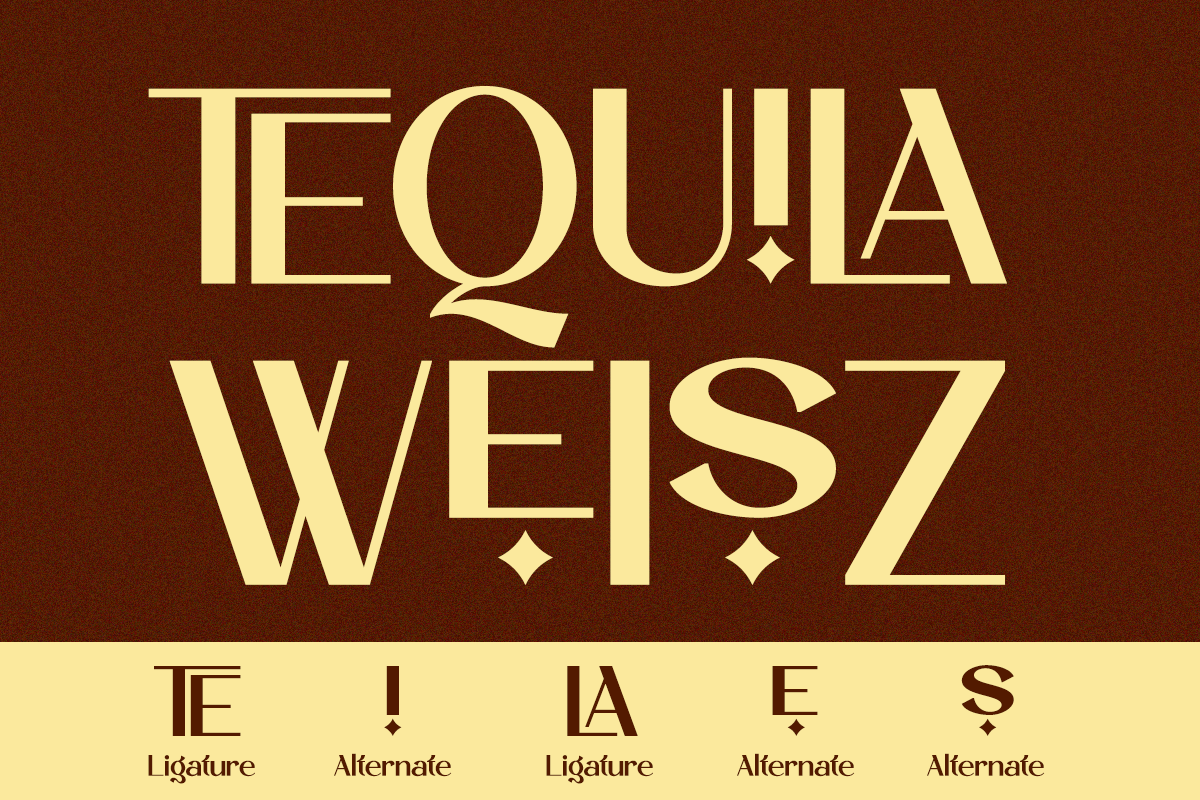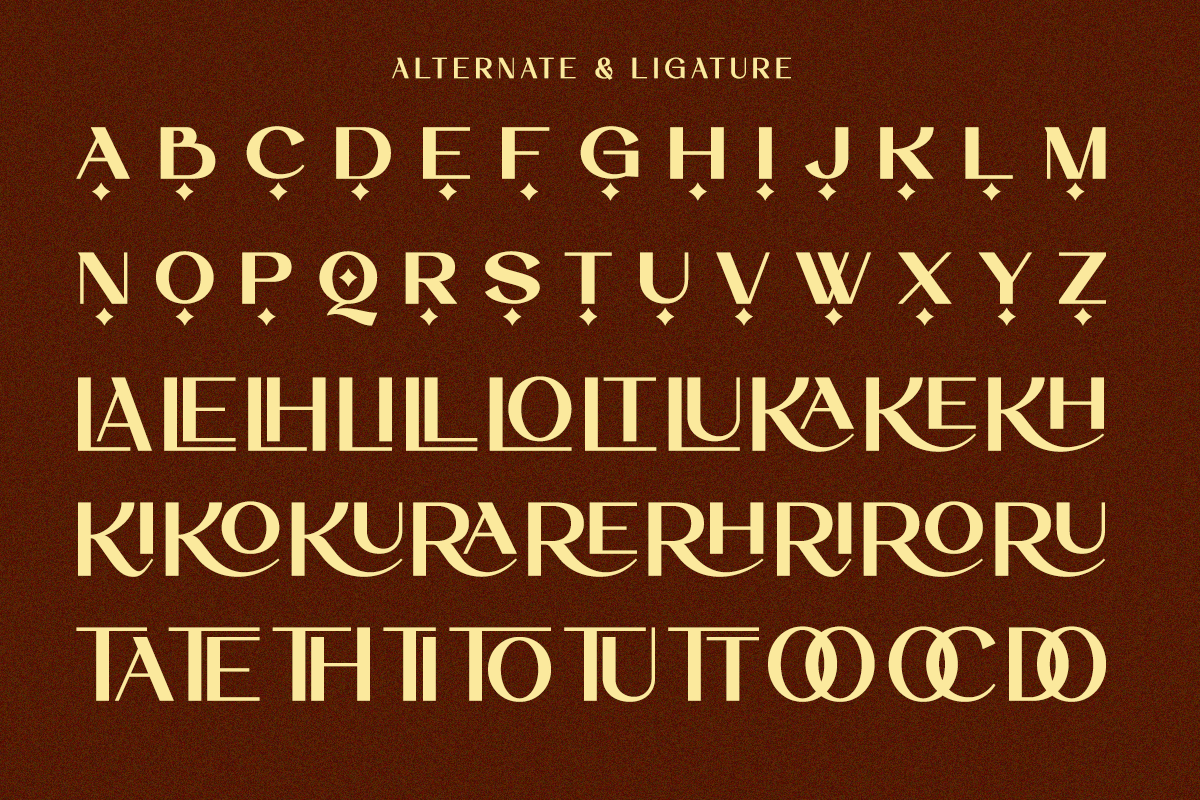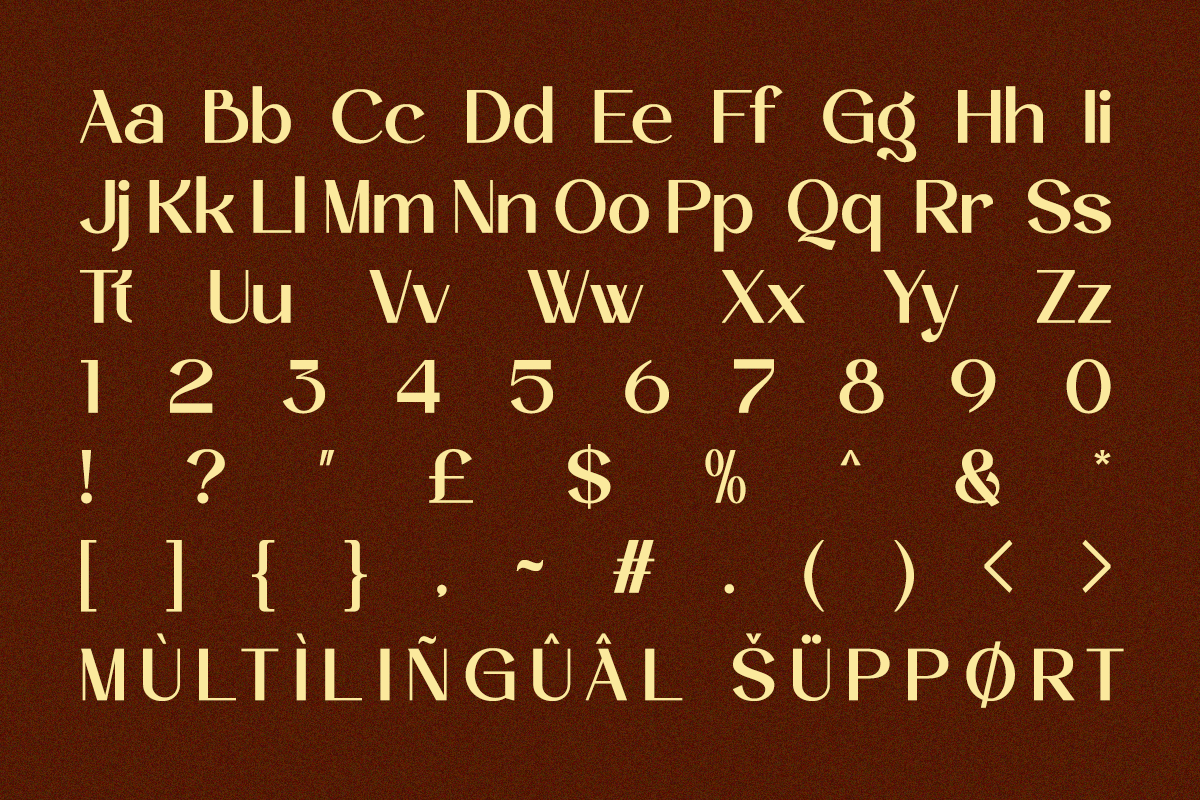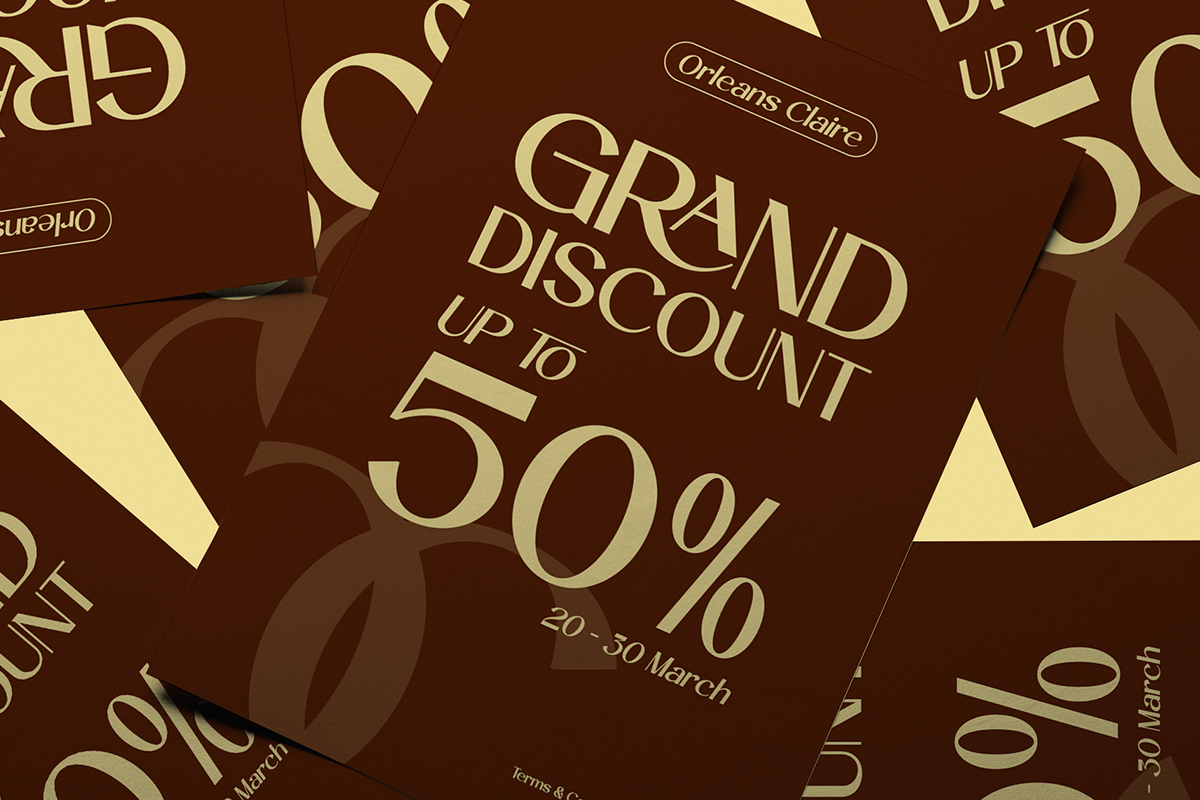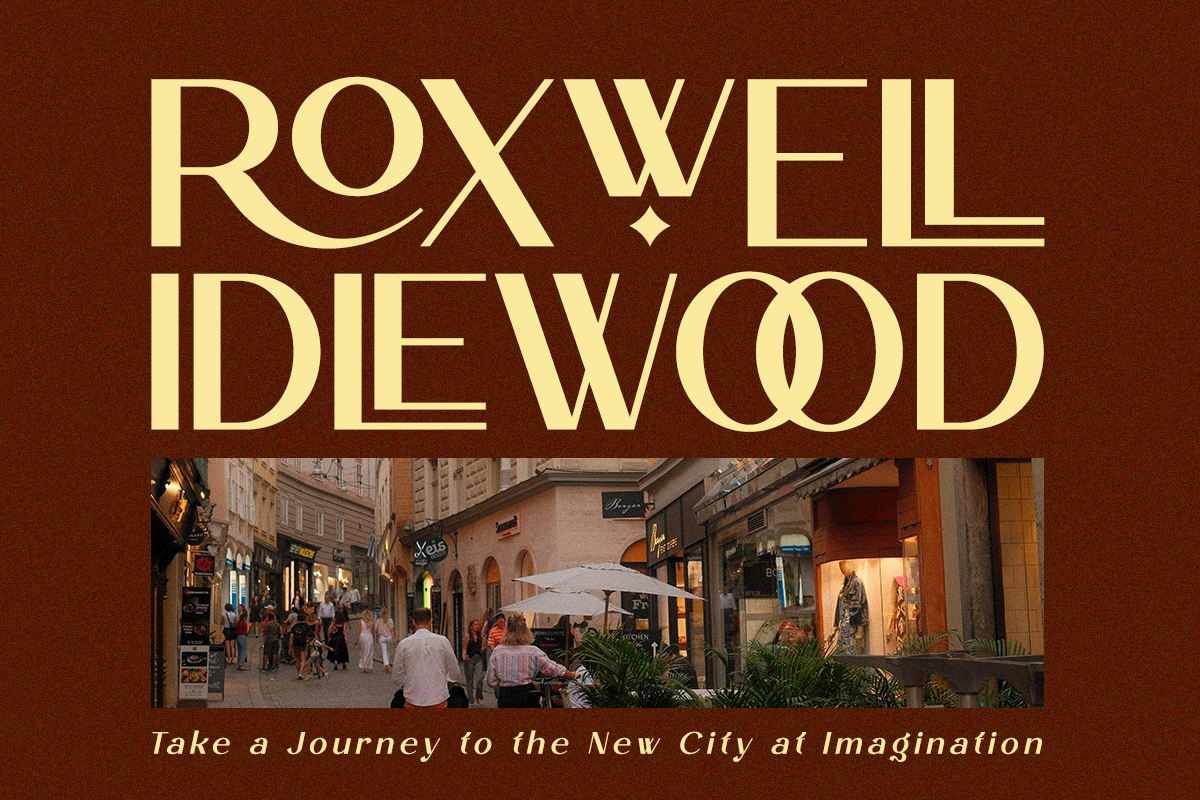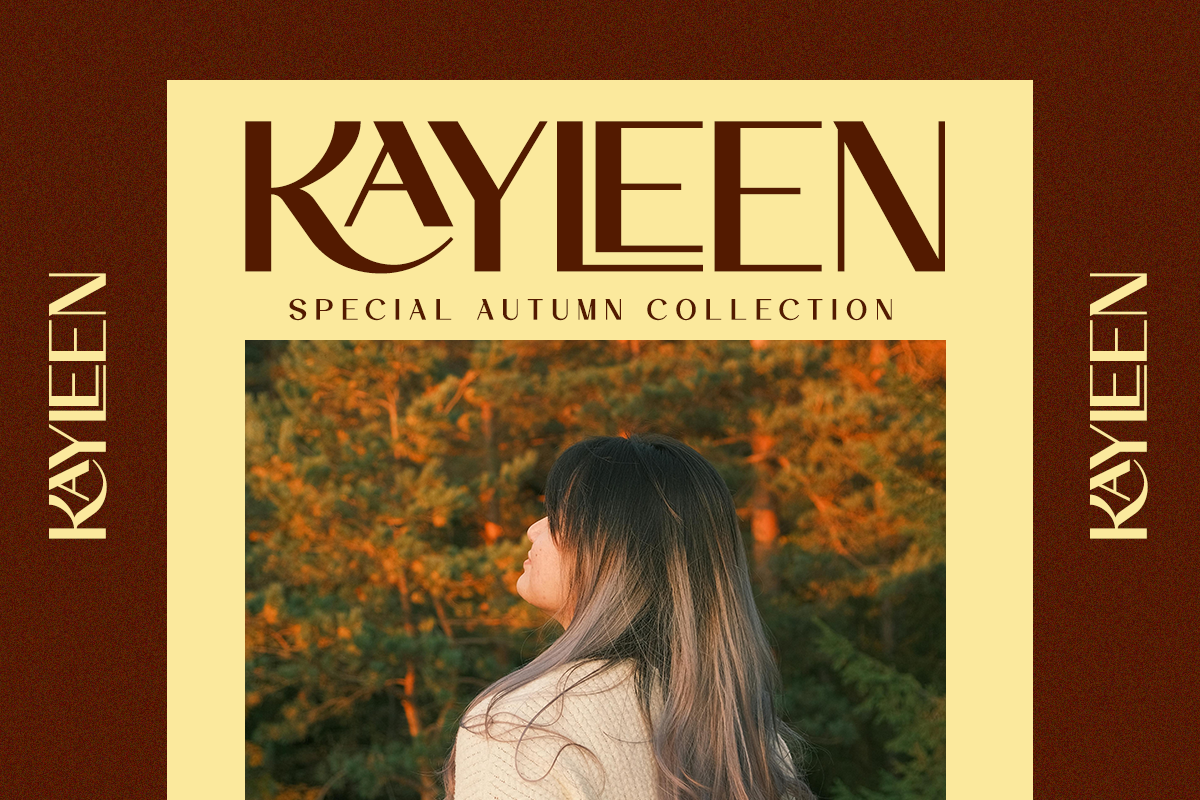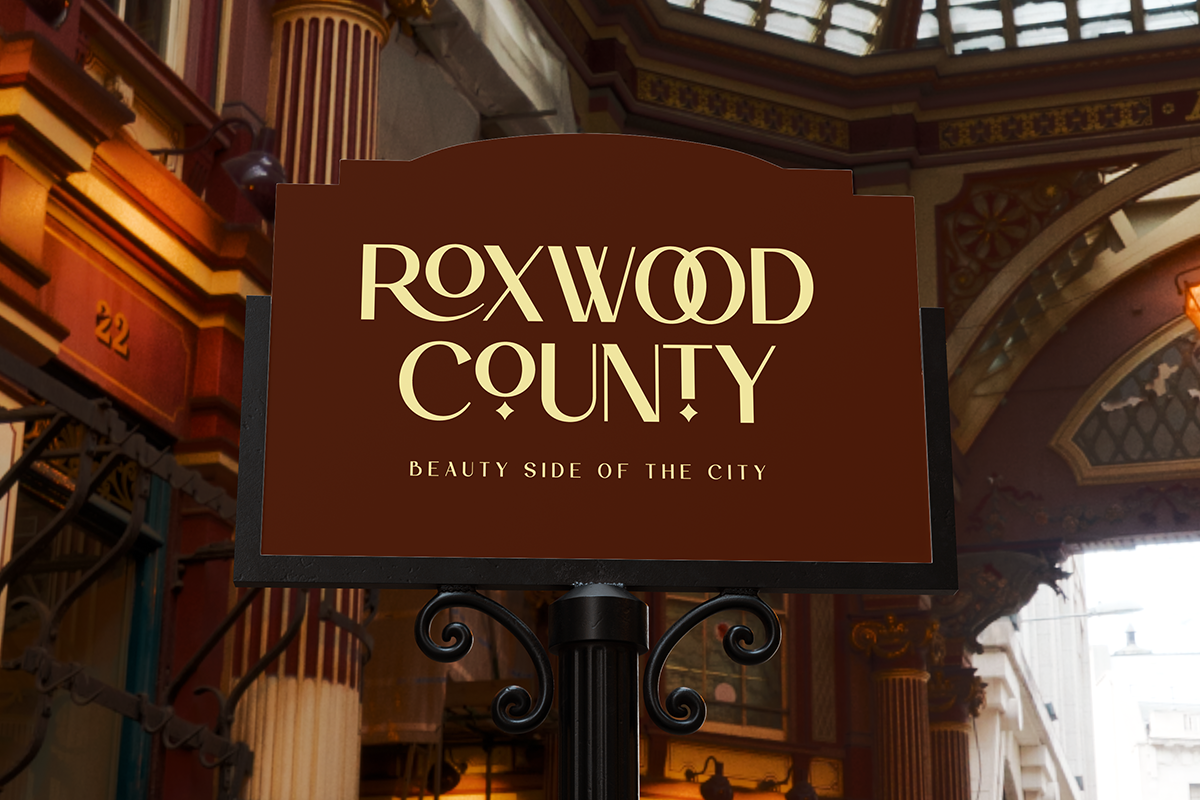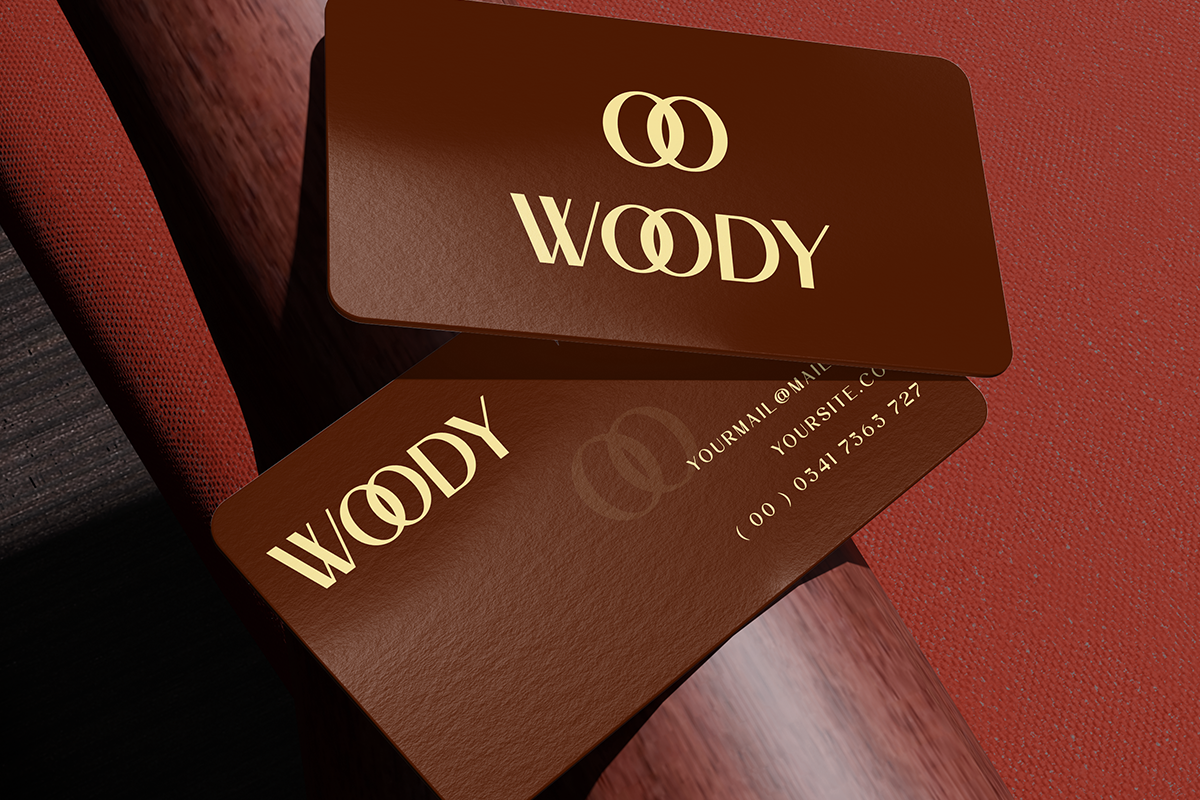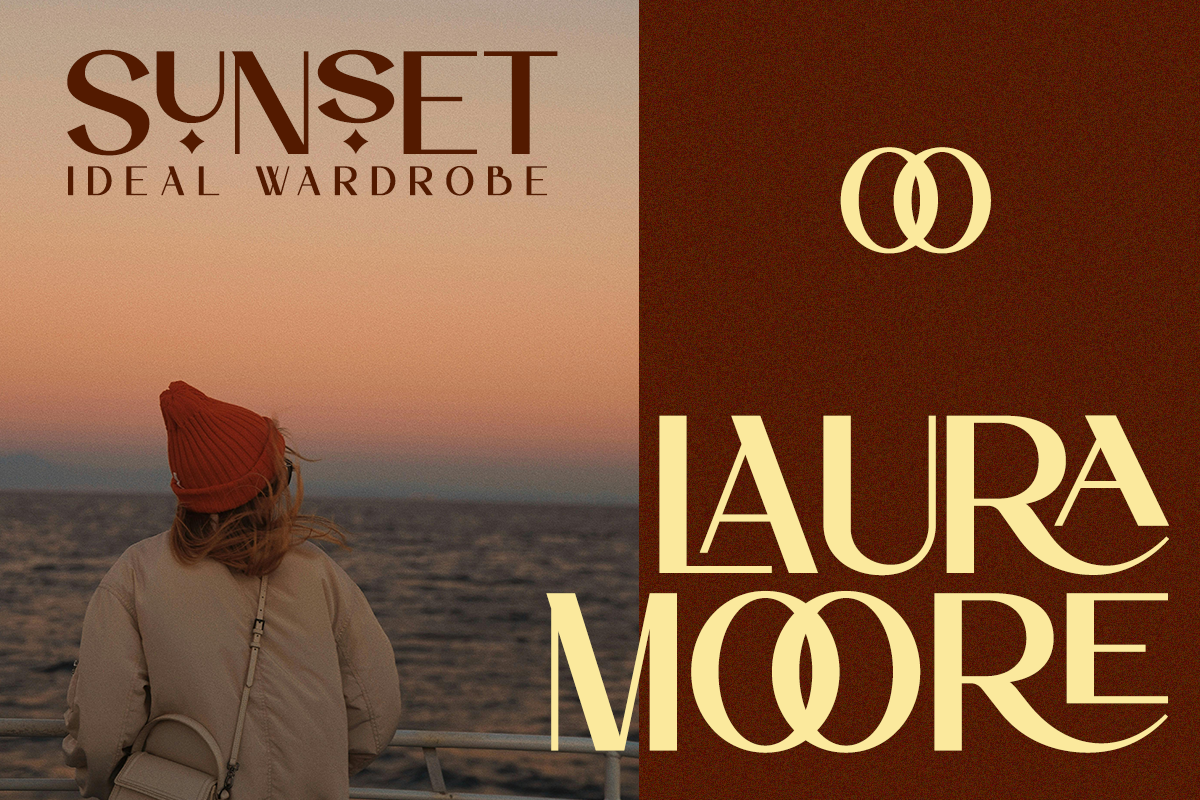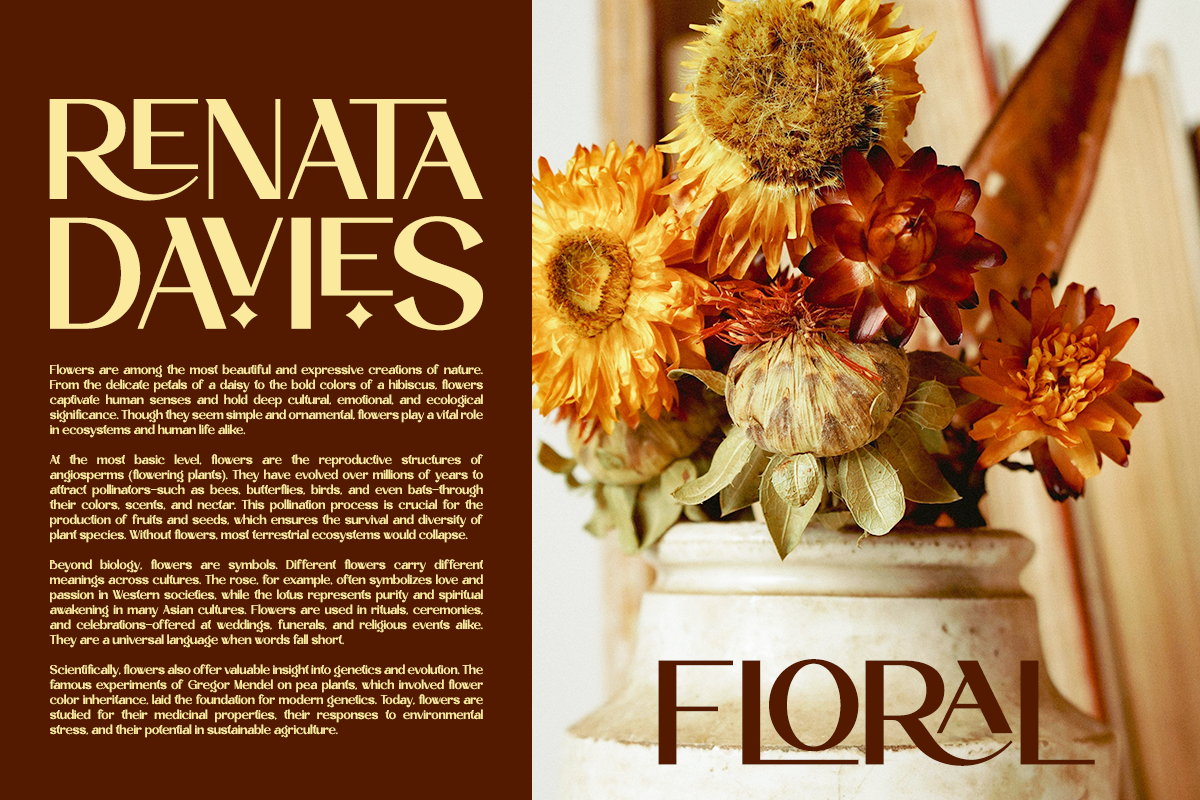
Luxury Ligature Sans Serif - Rochela
Rochela is a modern ligature sans font crafted to bring elegance, sophistication, and contemporary charm into every design project. Featuring graceful letterforms, refined curves, and beautifully designed ligatures, Rochela delivers a distinctive visual identity that feels both luxurious and approachable. Its clean structure and stylish details make it perfect for creating memorable branding and premium visual experiences.
Designed for versatility, Rochela works beautifully across logos, fashion branding, beauty products, editorial layouts, social media content, packaging, website headers, invitations, and high-end marketing materials. The combination of modern sans-serif simplicity and artistic ligature features creates a unique balance between readability and personality, helping your designs stand out effortlessly.
Whether you're building a luxury brand, designing a sophisticated magazine layout, creating elegant packaging, or developing a stylish visual identity, Rochela provides the perfect typographic foundation. Included in OTF, TTF, and WOFF formats, this font offers multilingual support and a collection of attractive ligatures that enhance every word with a refined, professional finish.
Regular and Italic Style
Stylistic Ligatures
Number, Symbol, and Punctuation
Multili Language Support